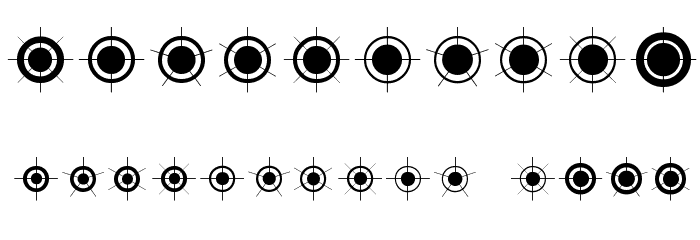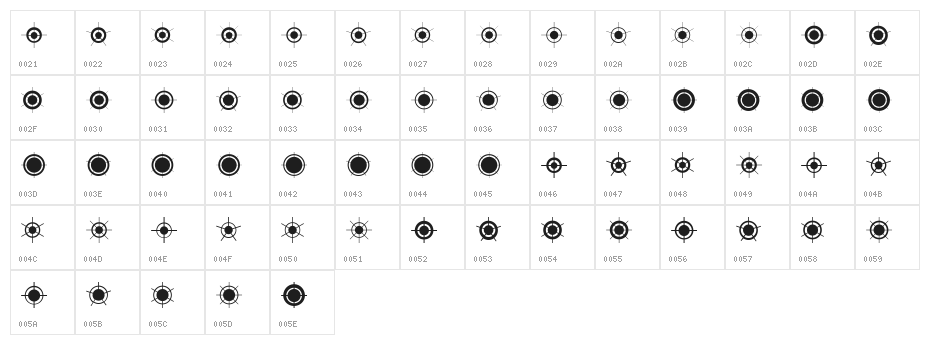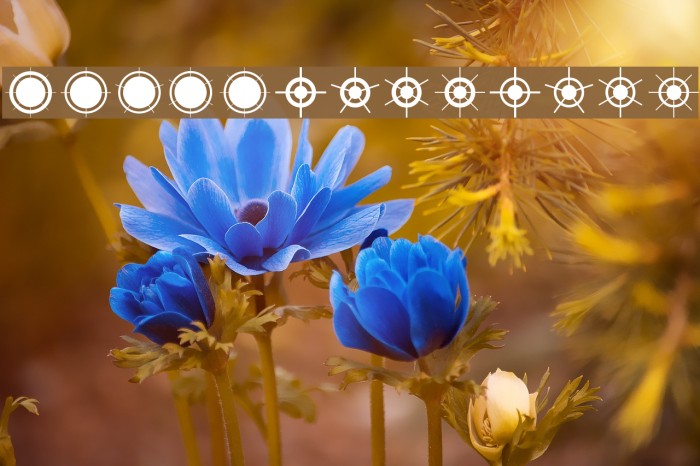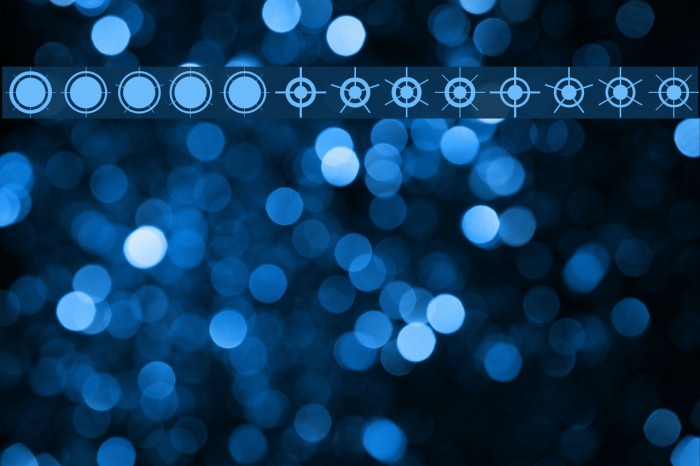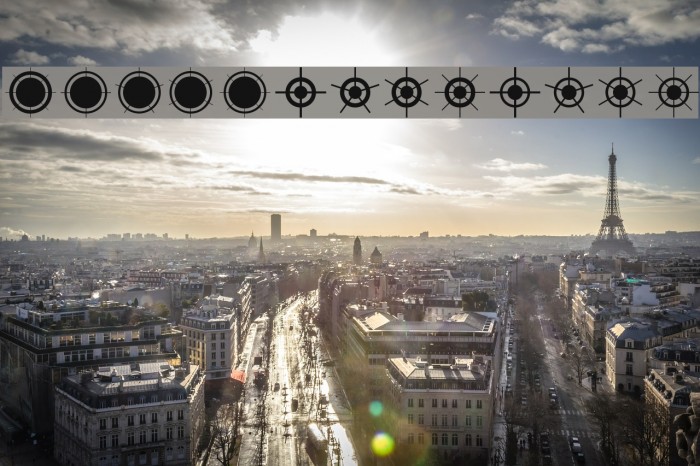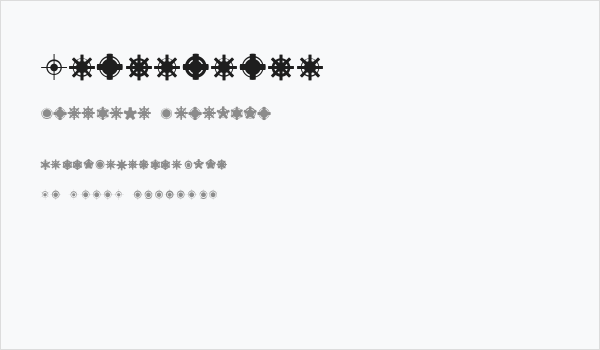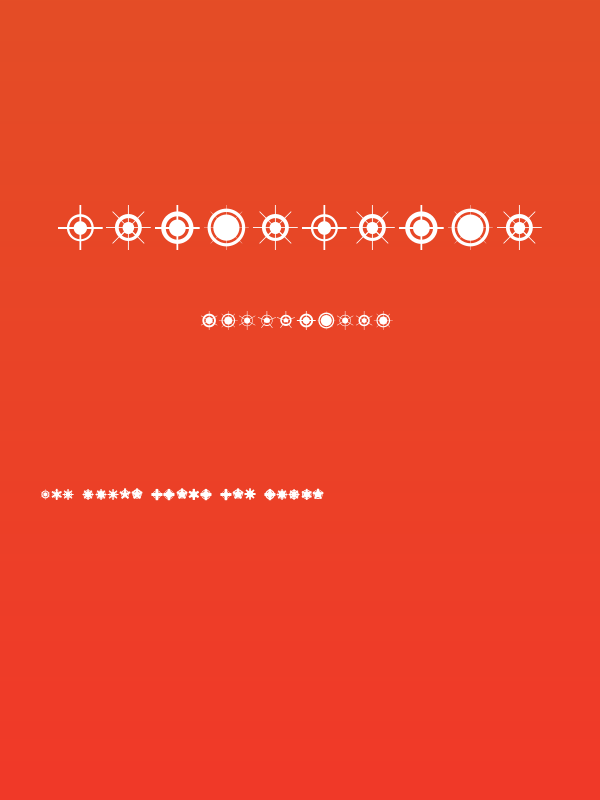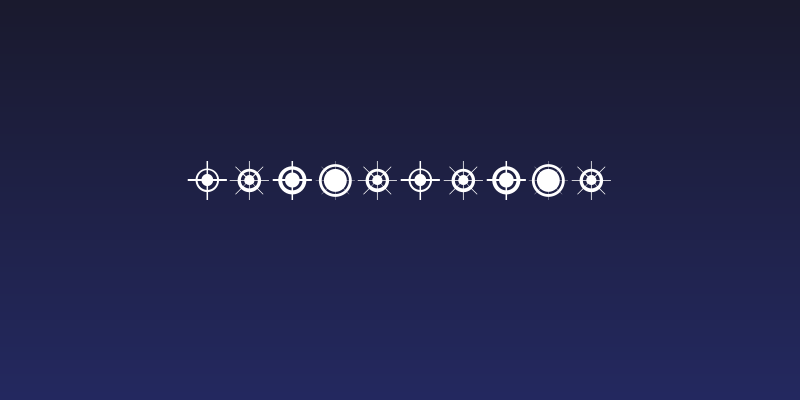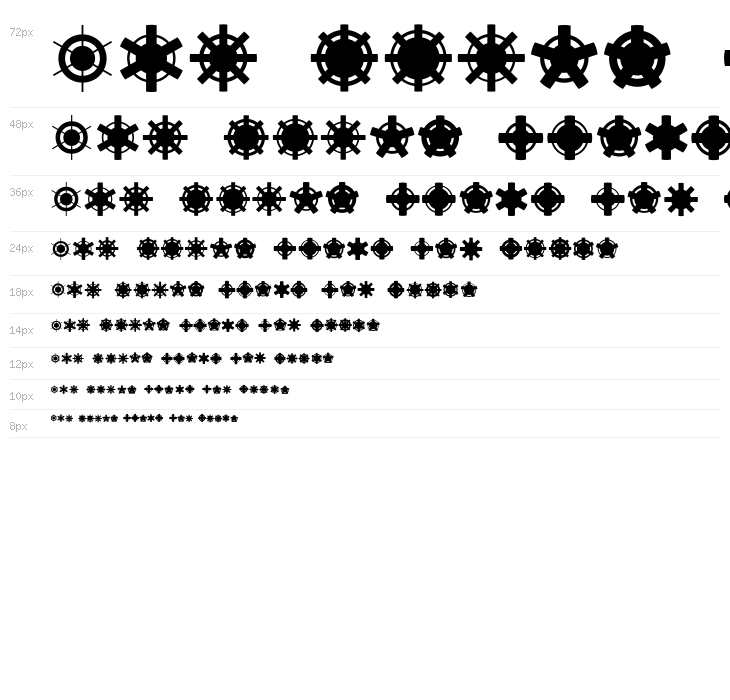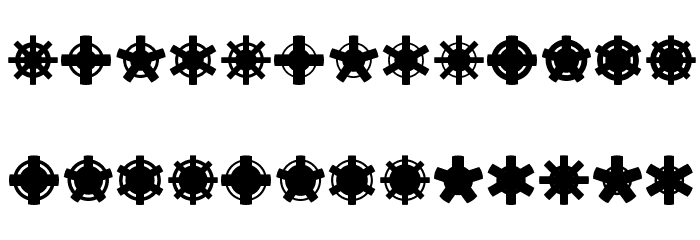
Jiraijirai Font
Jiraijirai Description
A highly decorative and geometric symbol-based typeface featuring circular forms with crosshair and gear-like elements, offering a mechanical and futuristic appearance. Each character is represented by a unique abstract symbol, with consistent use of bold lines and symmetrical shapes.
| Overall Style | Futuristic, Mechanical, Decorative |
| Use Case | Logos, Posters, UI elements, Decorative titles |
| Proposed Projects | Tech branding, sci-fi posters, game UI, digital art, futuristic logos, and decorative headings. |